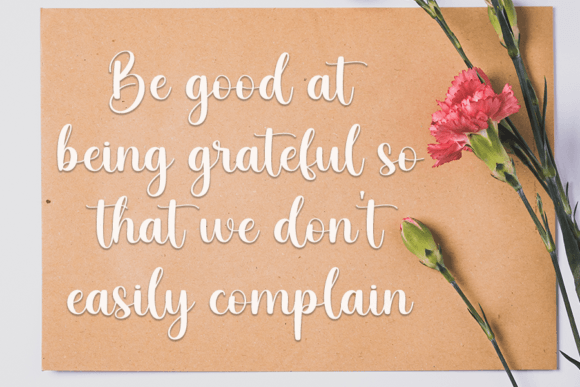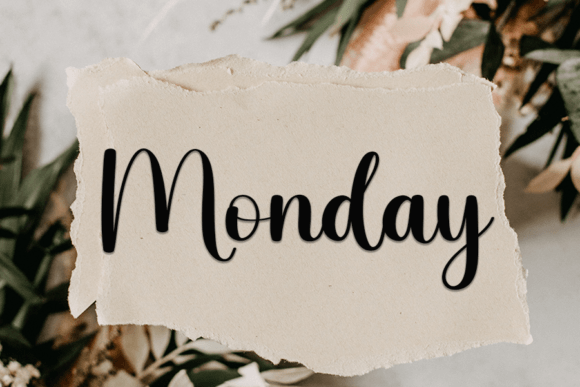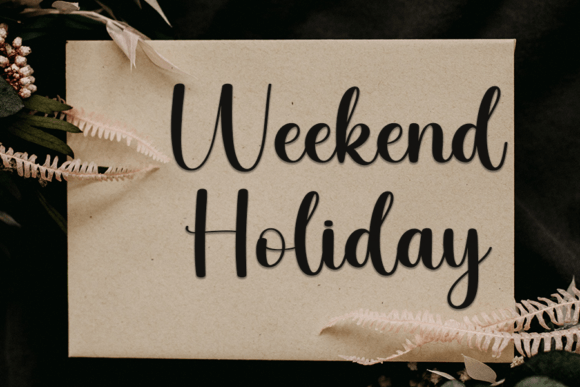
Yesterday Font
What Is Yesterday Font?
Yesterday is a delicate handwritten font crafted with care and precision. Its soft lines and graceful curves bring a unique, elegant feel to any project. If you want your designs to look cool, fresh, and personal, Yesterday is a perfect choice.
Yesterday is a versatile font that shines in many creative settings. Use it for handwritten letters that feel warm and genuine, or design beautiful wedding invitations that leave a lasting impression.
It also works wonderfully on food product packaging, adding a homemade, artisanal vibe. For titles and headers, Yesterday brings a touch of sophistication while staying friendly and approachable.
Whether you’re working on cards, posters, menus, or product labels, this font adapts effortlessly to your ideas.
Why Choose Yesterday Font?
Each character in Yesterday has been thoughtfully shaped to create a balanced, harmonious look. The varied baseline and smooth strokes help your text stand out while maintaining readability.
Yesterday elevates your designs by adding an elegant, handcrafted style. Even simple layouts gain depth and personality. The font’s delicate lines are perfect for conveying warmth and care, whether in personal notes or professional branding.
Its flexibility means you can use it for both playful and refined projects, making it a must-have in your font collection.
Yesterday is more than just a font—it’s an expression of style and creativity. From wedding invitations and product packaging to personal letters and branding, it adds a unique elegance that makes your designs unforgettable.